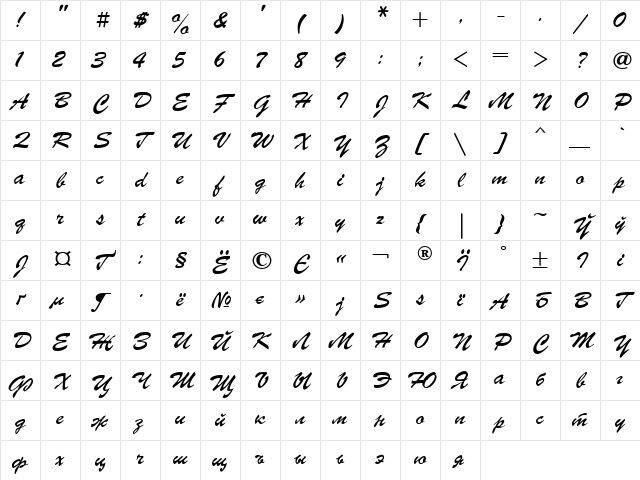
Parsek Cyrillic Free Font
Parsek Cyrillic
Style: Cyrillic
Design Context for Parsek
Parsek is a composed and adaptable typeface that performs quietly and consistently across a wide range of design contexts.